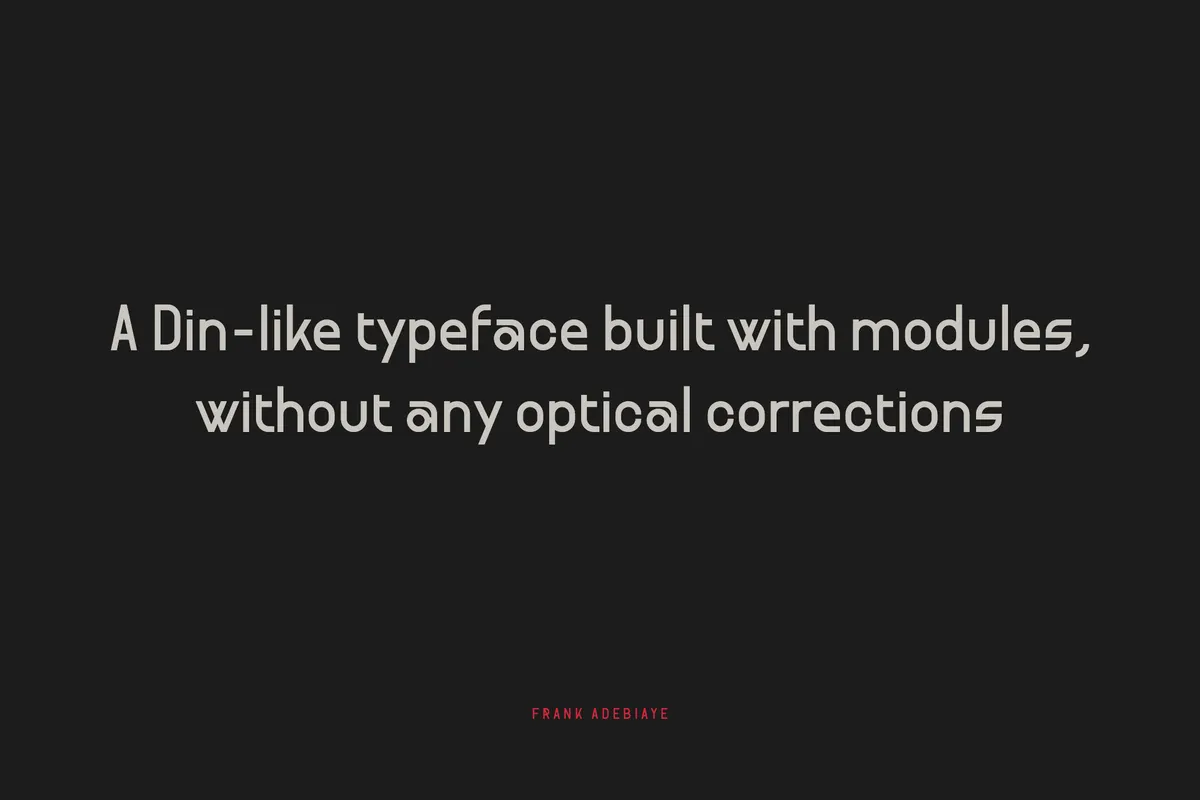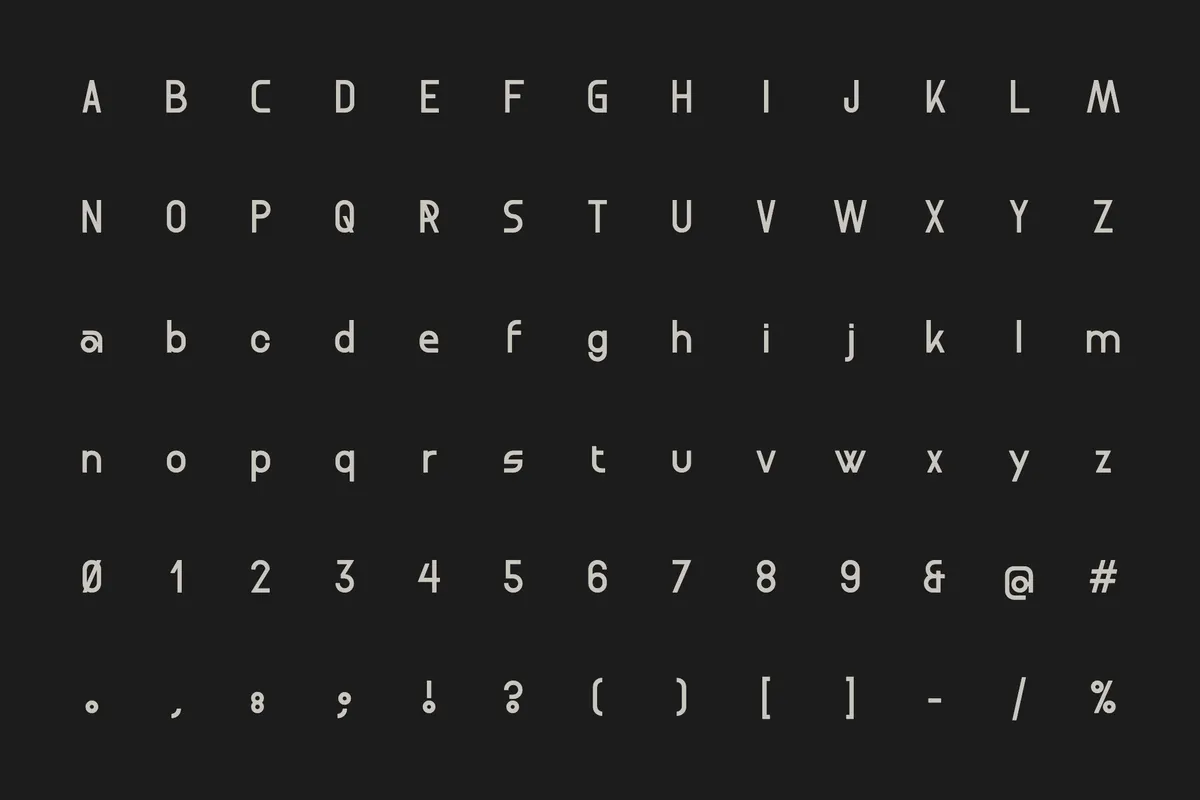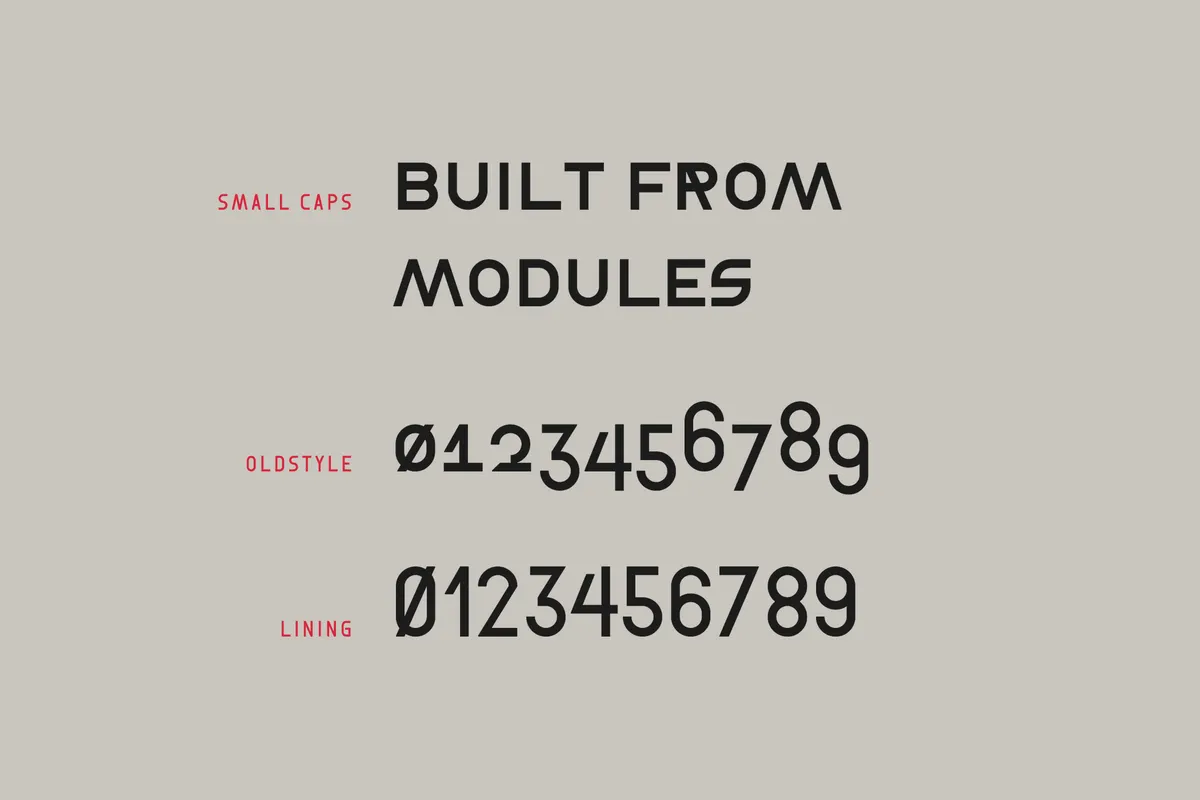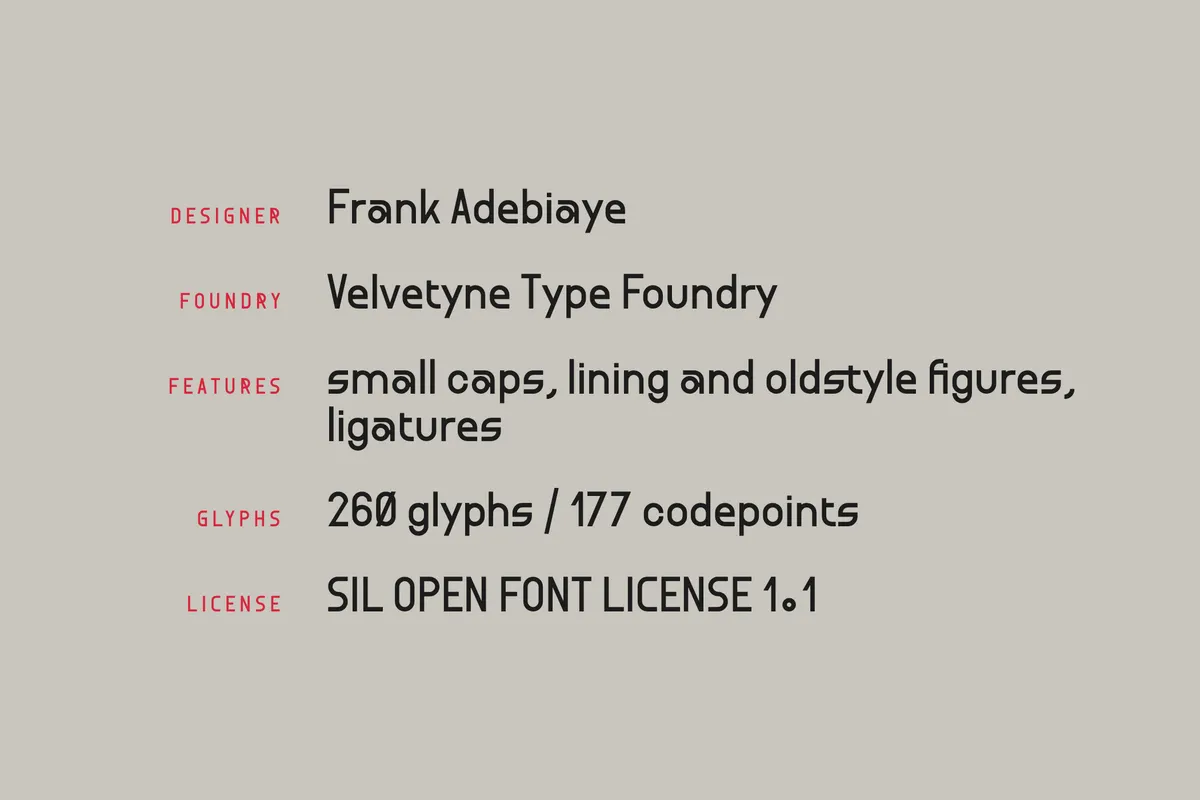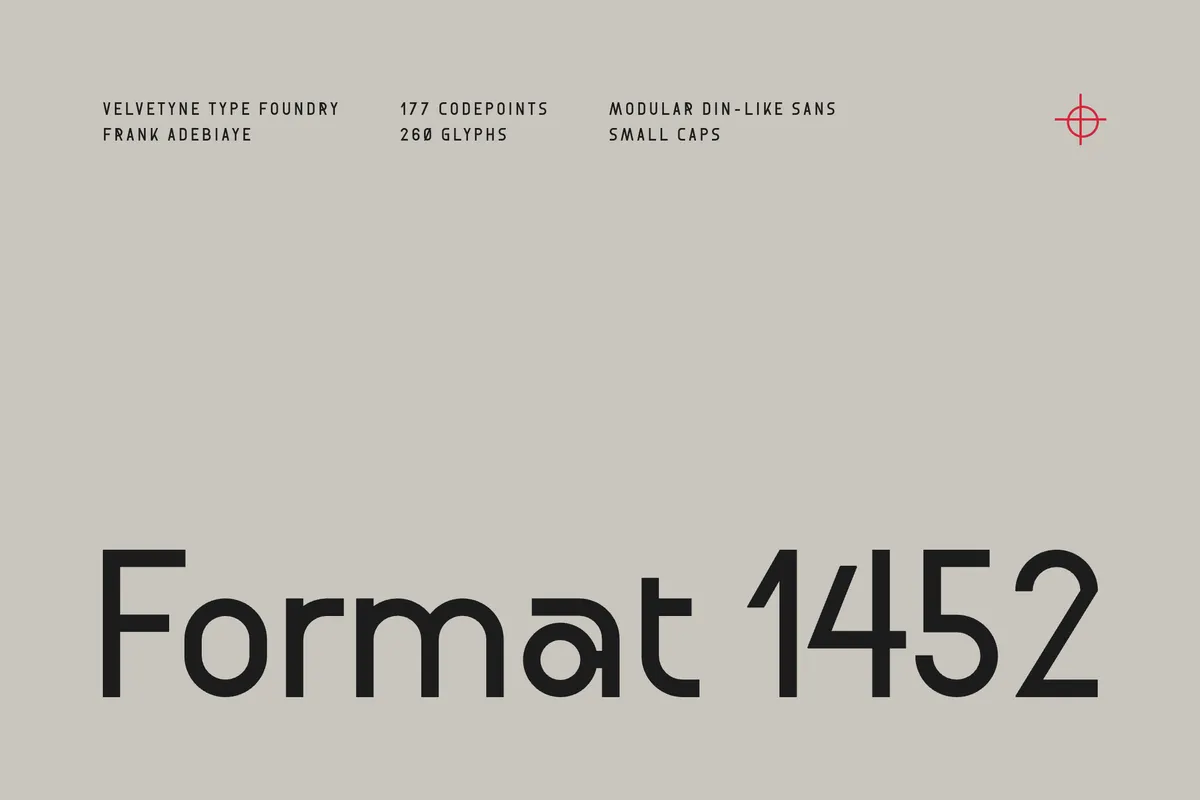
Format 1452 - Free DIN Industrial Font
Frank Adebiaye built Format 1452 from repeating geometric modules. The refusal to smooth the joins is the whole point, giving the font a raw, engineered look. Published by Velvetyne, it works well for tech and industrial branding, poster headlines, editorial layouts, signage, packaging, wordmark work, web interfaces, zines, and social media graphics.
- uppercase and lowercase letters;
- numbers, punctuation, and symbols;
- multilingual support across the Latin script;
- ligatures and OpenType features, including small caps and old-style figures.